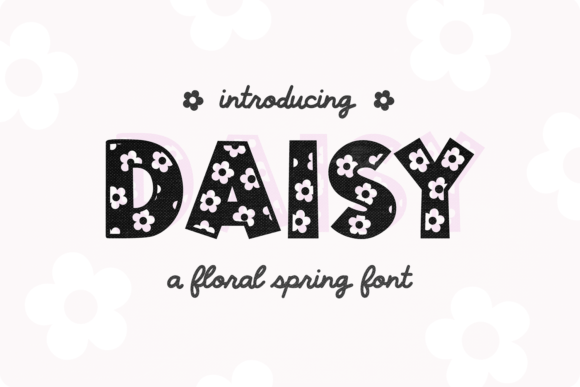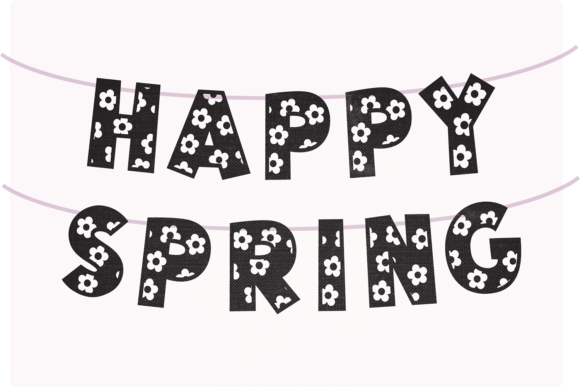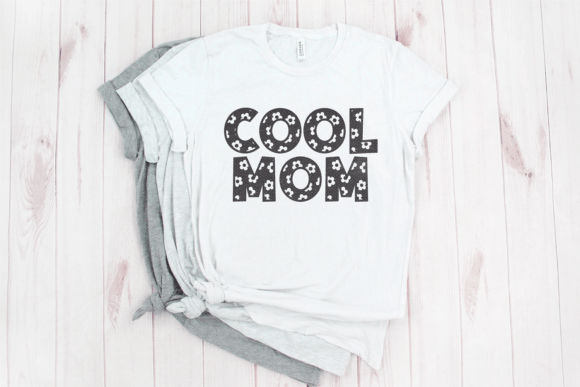
Daisy Font
About the Daisy Font
Make a bold statement with Daisy Font, a powerful and memorable font. Daisy is a bold daisy-patterned flower font. It will spruce up any spring project. Use it on craft projects, home decor, signs, and more!
Daisy’s bold, playful character makes it ideal for headlines, short impactful statements, and branding elements where a cheerful, eye-catching aesthetic is desired. It works exceptionally well on posters, packaging for products targeting a younger demographic, and social media graphics. However, its decorative nature makes it unsuitable for body text or long-form content; readability suffers at smaller sizes.
Pairing Daisy with a clean sans-serif like Open Sans or a more geometric typeface such as Montserrat provides a strong contrast and enhances legibility when used together. For a softer approach, consider pairing it with a delicate script font for added elegance, but use the script sparingly as a secondary element.
Daisy’s overall personality is best described as cheerful and youthful, conveying a sense of springtime energy and approachability. Avoid using it in contexts requiring sophistication or formality; its bold design is best suited for projects that need a vibrant and friendly touch.